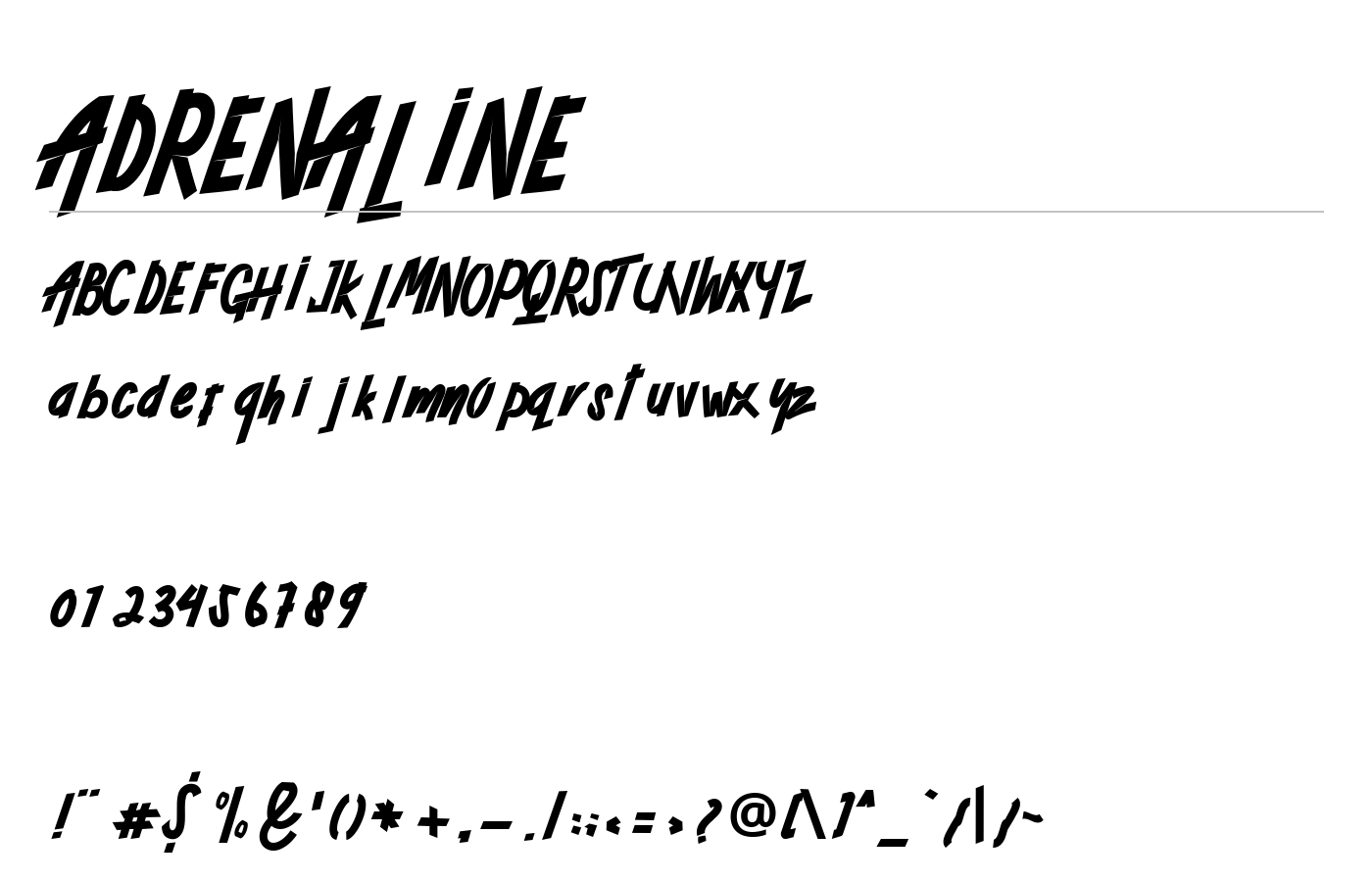
ADRENALINE is a bold, condensed sans serif font with an energetic, slanted design that creates a sense of speed and dynamism. Its sharp, angular strokes and irregular letter shapes give it a modern, edgy personality, making it perfect for attention-grabbing headlines, sports branding, and any design needing a rush of excitement and impact. This font works best in display settings where a strong, adventurous vibe is desired.
ADRENALINE Font
About ADRENALINE Font
| Font family | ADRENALINE Font |